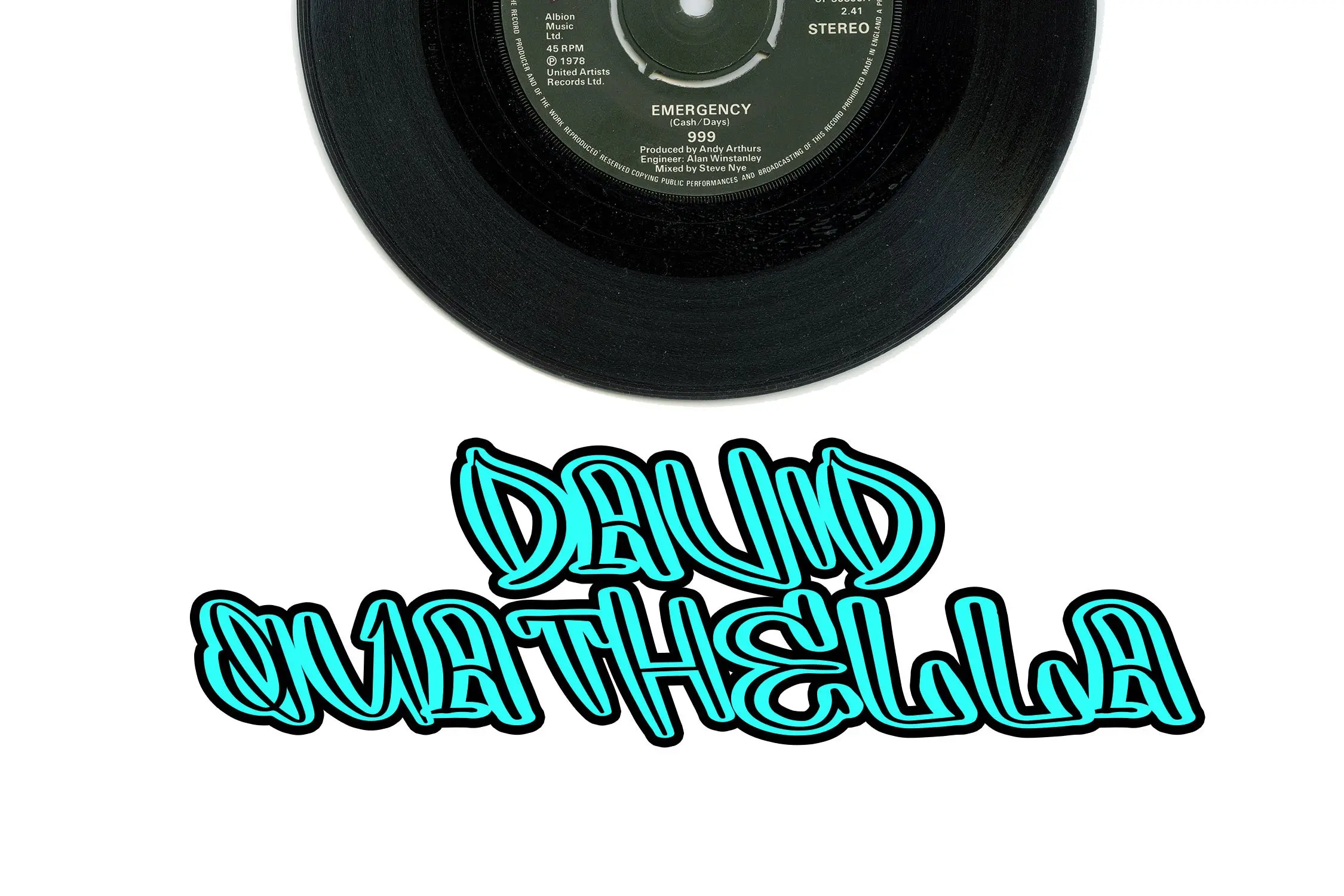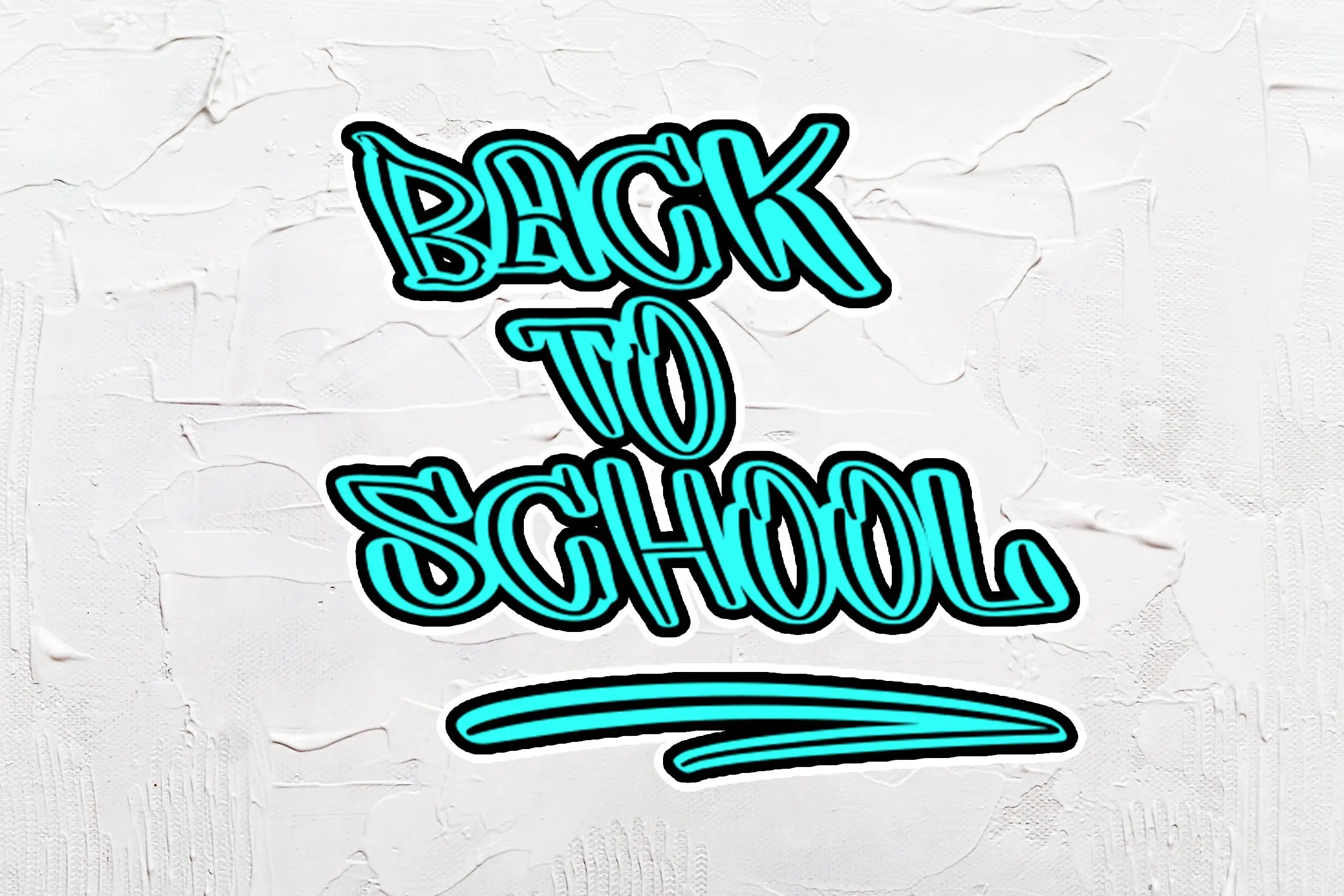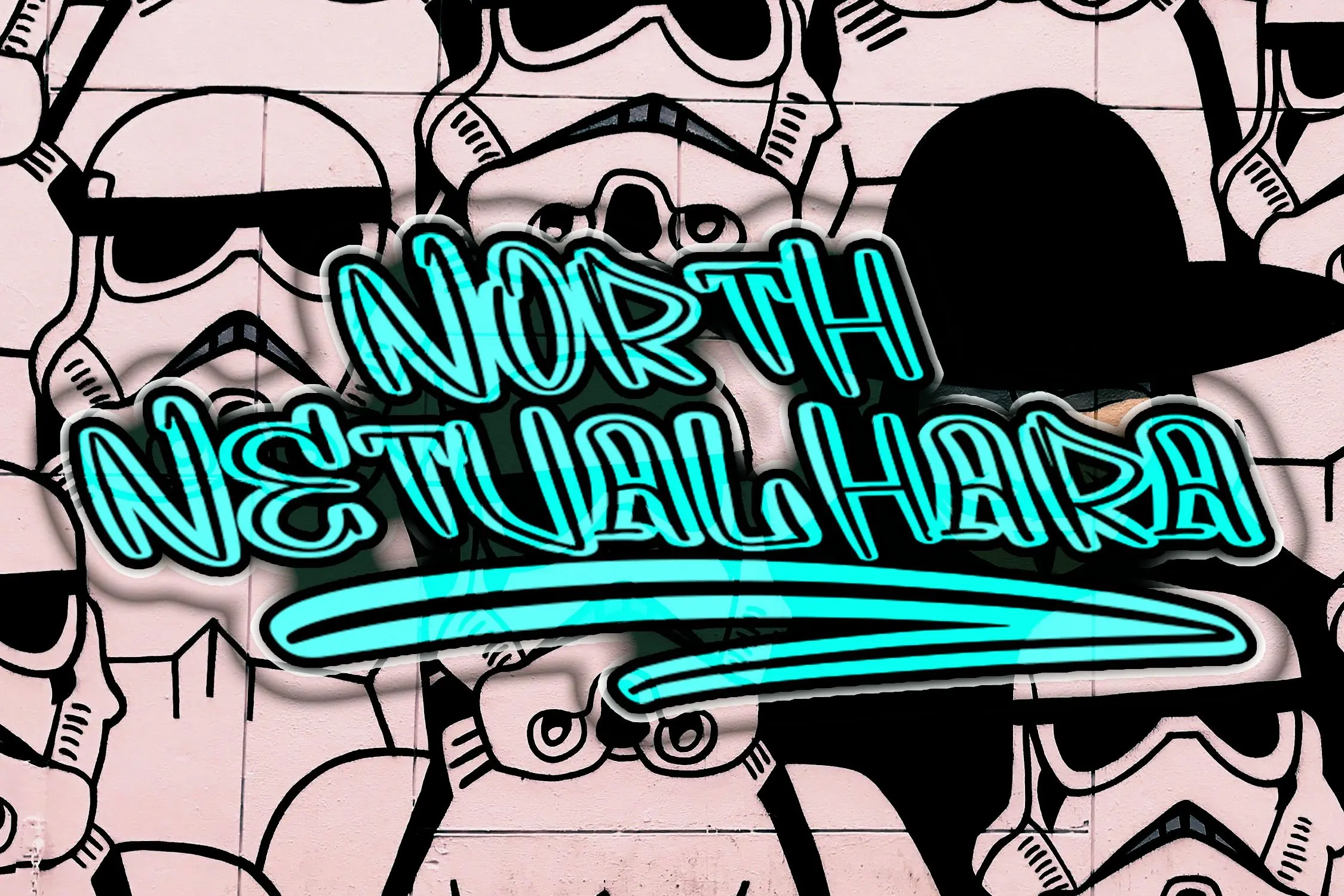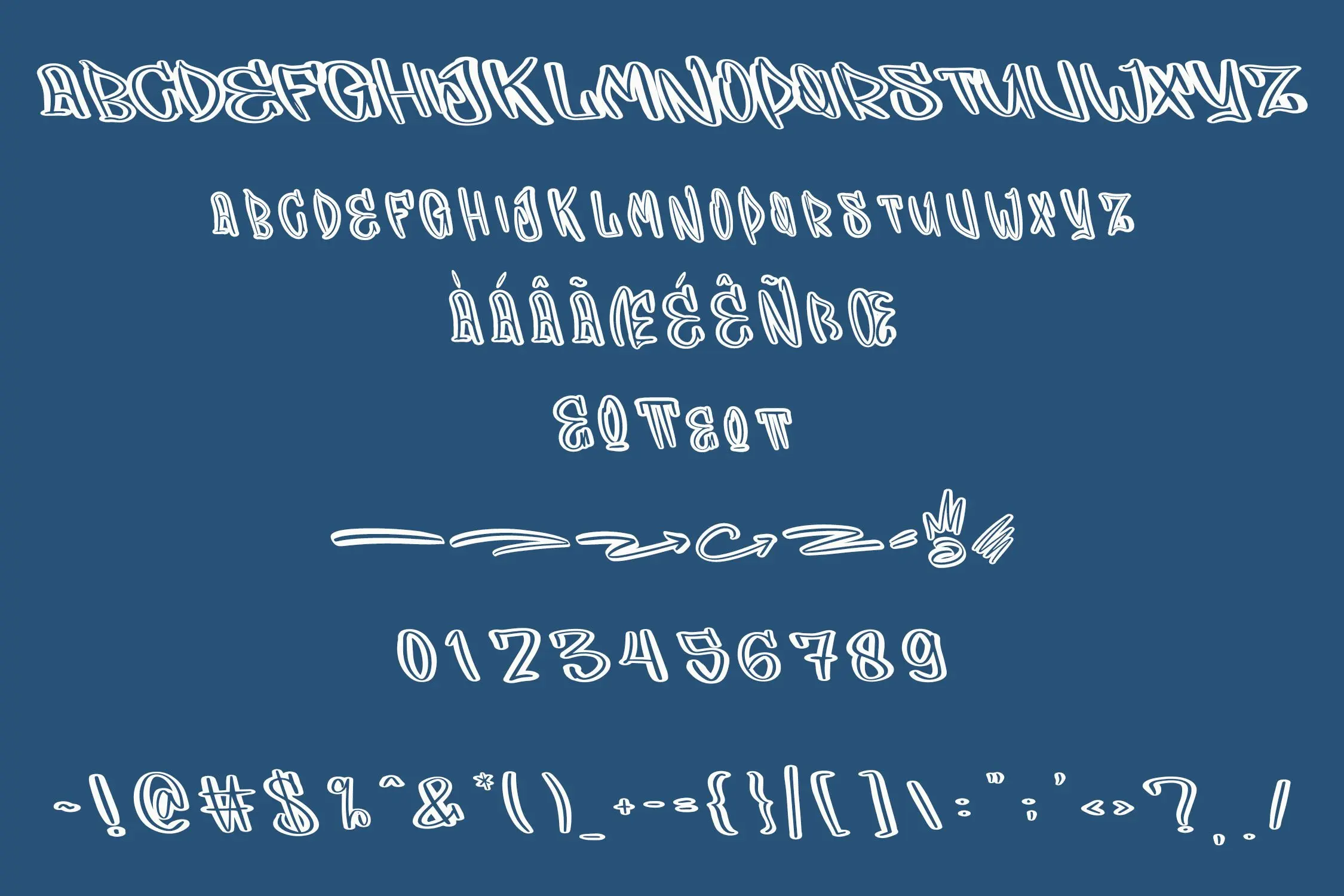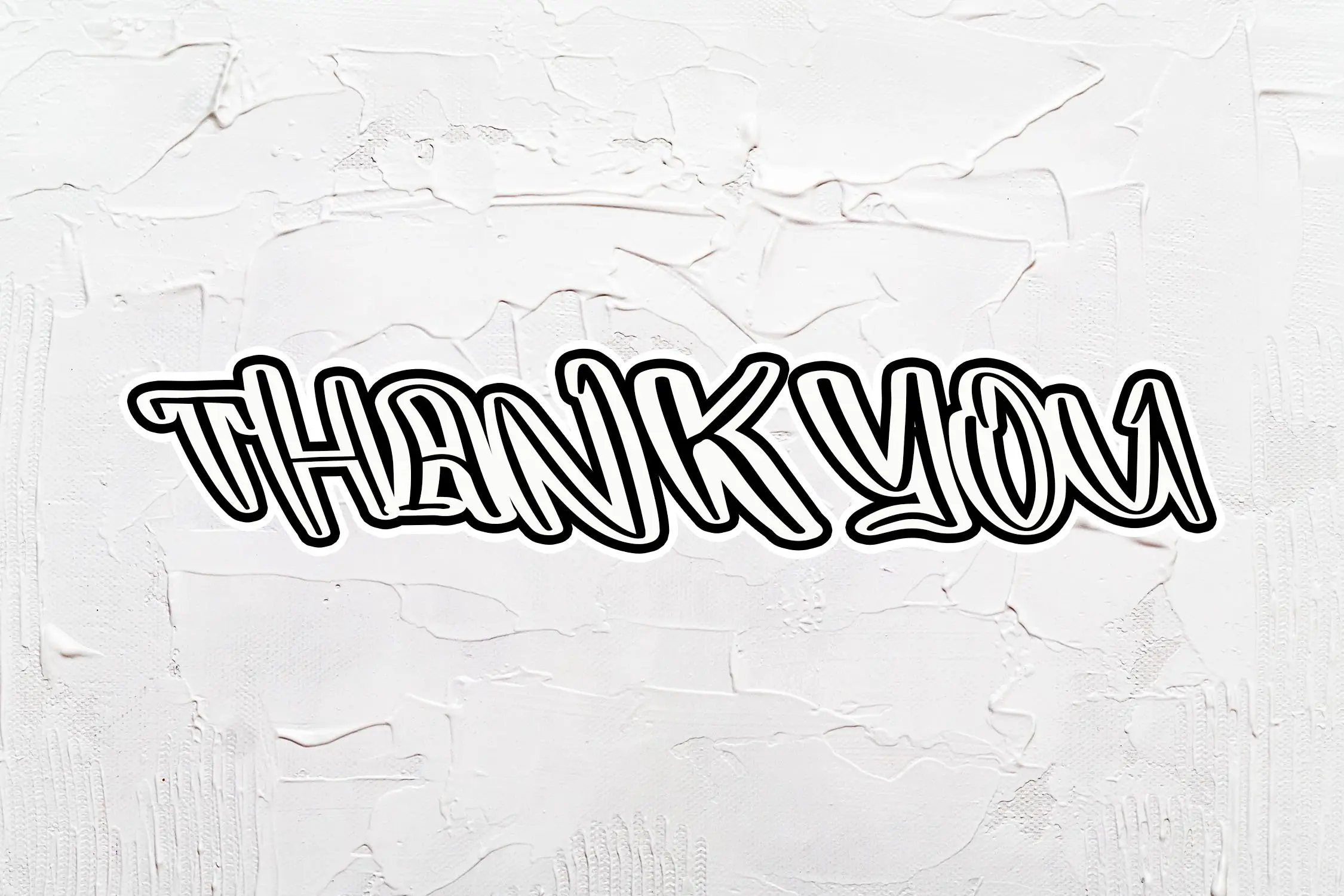
WOSARD: Bold Outlined Graffiti Font
Bring your designs to life with WOSARD, a bold graffiti font featuring an outlined hand-brush style. Its distinctive and creative character shapes make it perfect for enhancing the visual appeal of posters, branding, merchandise, and urban-themed projects. WOSARD is your go-to choice for modern, eye-catching typography.
Key Features:
- Ligatures & Stylistic Alternates: Add uniqueness and flair to your text.
- Swashes & Multilingual Support: Create expressive designs with global reach.